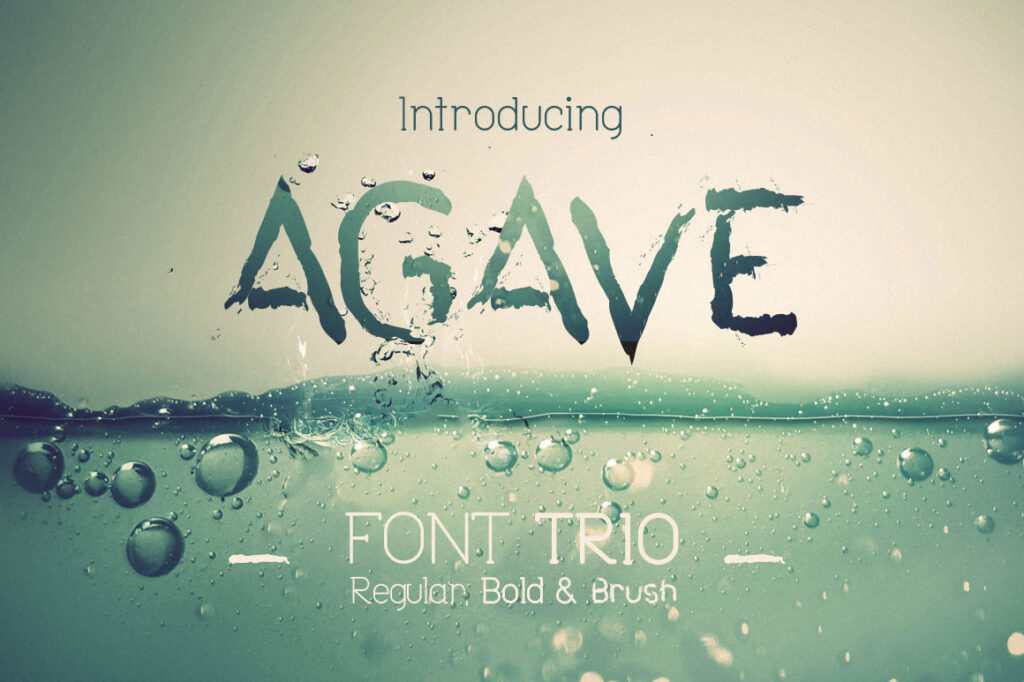
Introducing the Agave Font Trio: A Perfectly Paired Collection
The Agave Font Trio is a versatile and stylish collection of three complementary fonts, designed to work seamlessly together. This expertly curated trio consists of Agave Regular, Agave Brush, and Agave Bold, each offering unique characteristics that, when combined, provide endless possibilities for creative expression.
The Components of the Agave Font Trio
Agave Regular
Agave Regular is the foundation of the trio, providing a clean and elegant sans-serif font. Its straightforward design makes it perfect for body text, headings, and any application where clarity and readability are paramount. The regular font’s subtle curves and balanced proportions ensure it remains approachable and easy to read across various mediums.
Agave Brush
Agave Brush adds a touch of creativity and flair to the trio, with its fluid, hand-brushed strokes. This font is ideal for adding emphasis, creating eye-catching headlines, or injecting personality into a design. The brush font’s organic feel lends itself well to projects that require a more personalized or artistic approach.
Agave Bold
Agave Bold is the powerful and assertive member of the trio, designed to make a statement. With its strong, confident lines, this font is perfect for headings, titles, and any situation where you want to grab attention. The bold font’s commanding presence ensures your message is heard loud and clear.
The Power of Versatility: Mixing and Matching the Agave Font Trio
One of the key benefits of the Agave Font Trio is its incredible versatility. The three fonts are carefully designed to work together in harmony, allowing for a wide range of design possibilities. Here are some ways you can mix and match these fonts to elevate your projects:
1. Classic Combination: Agave Regular and Agave Bold
Pairing Agave Regular with Agave Bold creates a timeless and authoritative look. Use Agave Regular for your body text and Agave Bold for headings to create a clear hierarchy and draw attention to key information.
2. Creative Contrast: Agave Brush and Agave Bold
For a more dynamic look, combine Agave Brush with Agave Bold. This pairing adds a creative twist to your design, with the brush font’s softness contrasting beautifully with the bold font’s assertiveness.
3. Elegant Simplicity: Agave Regular and Agave Brush
For a more subtle yet elegant approach, pair Agave Regular with Agave Brush. This combination works well for designs that require a touch of personality without overpowering the content.
4. Triple Threat: Using All Three Fonts
For maximum impact, why not use all three fonts together? Agave Regular can serve as the base font, Agave Bold for headings, and Agave Brush for highlights or call-outs. This approach offers a rich visual hierarchy and plenty of creative freedom.
Applications of the Agave Font Trio
The Agave Font Trio’s versatility makes it suitable for a wide range of projects, including:
- Branding and Logo Design: Create a cohesive brand identity with a combination that reflects your brand’s personality.
- Web Design: Enhance user experience with clear typography and creative highlights.
- Print Design: From brochures to posters, the Agave Font Trio offers a professional yet creative solution.
- Packaging: Stand out on store shelves with eye-catching typography.
Why Choose the Agave Font Trio?
In a world where typography plays a crucial role in communication and aesthetics, the Agave Font Trio stands out for several reasons:
- Consistency: Designed to work together seamlessly, ensuring a cohesive look across your projects.
- Versatility: Offers endless possibilities for mixing and matching to suit your creative needs.
- Legibility: Prioritizes readability, making it perfect for both digital and print applications.
- Aesthetics: Adds a touch of elegance and creativity to any design.
The Agave Font Trio is more than just a collection of fonts; it’s a design solution that empowers creativity and consistency. Whether you’re a graphic designer, a business owner looking to brand your company, or a digital content creator, this trio offers the tools you need to elevate your projects. By combining the clean lines of Agave Regular, the artistic flair of Agave Brush, and the commanding presence of Agave Bold, you can create visually appealing and effective designs that capture your audience’s attention.
Embrace the flexibility and aesthetic appeal of the Agave Font Trio in your next project. With its unique blend of functionality and style, it’s sure to become your go-to font collection for a wide range of applications.